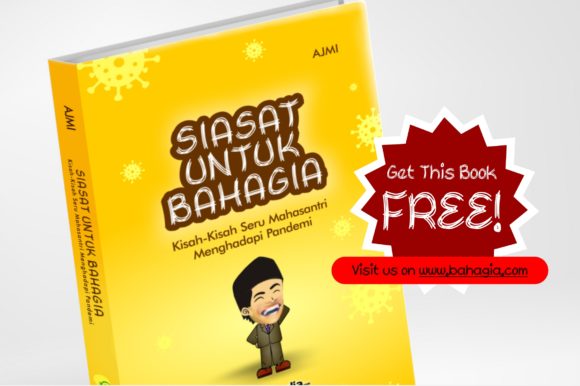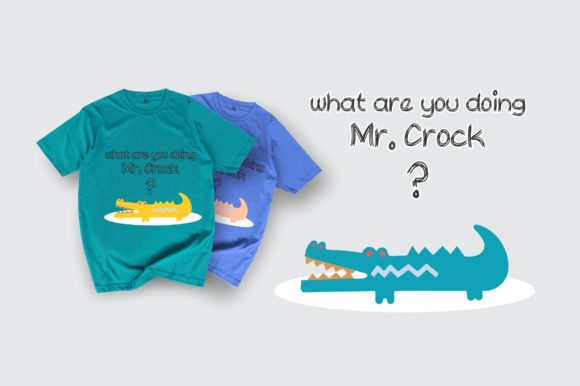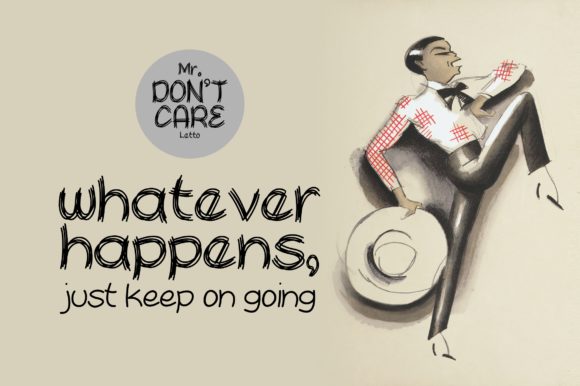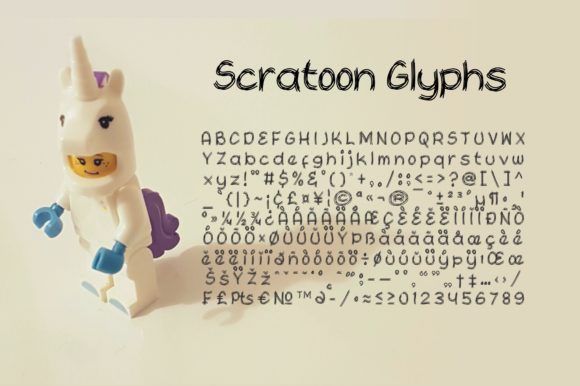
Scratoon Font
About Scratoon Font
Scratoon sounds like a fascinating and versatile handwritten font, perfect for adding a touch of creativity and uniqueness to a wide range of designs. Let’s explore some exciting ideas on how you can use Scratoon to create captivating and extraordinary projects:
1. Artistic Posters: Design eye-catching posters using Scratoon to convey artistic messages, promote events, or showcase creative endeavors.
2. Quirky Book Covers: Create book covers for unique and offbeat titles, using Scratoon to reflect the book’s unconventional content.
3. Playful Branding: Use Scratoon as part of branding materials for businesses or products that want to convey a fun and whimsical personality.
4. Unconventional T-Shirts: Design quirky and original t-shirts featuring playful phrases or artistic illustrations using Scratoon.
5. Offbeat Greeting Cards: Create one-of-a-kind greeting cards for niche occasions, humorously designed with Scratoon.
6. Creative Blog Graphics: Use Scratoon to design engaging and imaginative graphics for blog posts or website content.
7. Unique Product Packaging: Apply Scratoon to product packaging for artisanal or unconventional products, attracting attention on the shelves.
8. Abstract Art Prints: Design abstract art prints using Scratoon’s interesting letterforms to evoke a sense of creativity and uniqueness.
9. Whimsical Social Media Posts: Craft captivating and fun social media posts with Scratoon to engage followers and showcase creativity.
10. Offbeat Flyers and Brochures: Design attention-grabbing flyers and brochures for events or unconventional businesses, using Scratoon to stand out.
11. Playful Educational Materials: Create imaginative educational materials or worksheets for children or unconventional learning environments.
12. Unique Website Headers: Use Scratoon as a header font for websites to give them a distinct and artistic feel.
13. Creative Restaurant Menus: Apply Scratoon to menus for quirky cafes or creative eateries to set a unique dining experience.
14. Expressive Poetry Books: Design expressive and artistic poetry books using Scratoon to amplify the emotional impact of the words.
15. Imaginative Party Invitations: Create imaginative and whimsical party invitations for unique themed events or celebrations.
16. Experimental Art Installations: Use Scratoon to add a playful and artistic touch to art installations or gallery displays.
17. Eccentric Product Labels: Apply Scratoon to product labels for artisanal goods or specialty items, adding a quirky and creative flair.
18. Unconventional Brand Identity: Use Scratoon as part of a brand identity for an art collective, creative agency, or design studio.
19. Unique Tattoos and Body Art: Design personalized and artistic tattoos or body art using Scratoon for a truly unique expression.
20. Surreal Editorial Designs: Create editorial layouts or magazine designs that embrace the quirky and surreal with Scratoon’s distinctive style.
In summary, Scratoon is an intriguing and unconventional handwritten font that opens up a world of creative possibilities. From quirky book covers to expressive poetry books, this unique font adds an artistic touch to a wide variety of designs. Embrace the creativity and versatility of Scratoon, and let it inspire you to explore and experiment with captivating and imaginative projects! The only limit truly is your imagination.